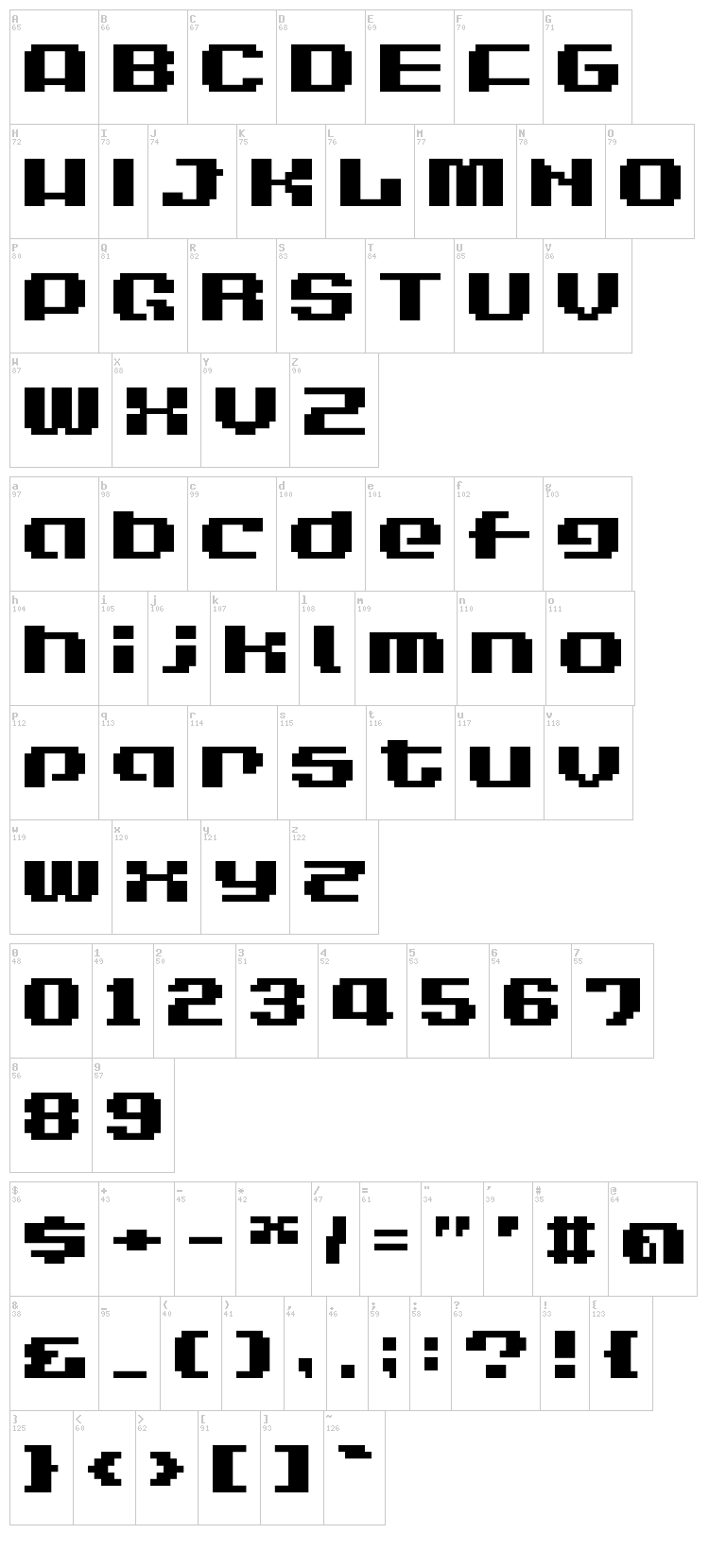
Game Over Pixel Font
Game over by pedro m.
Game over pixel font. Note of the author. It will give a blockish feeling. Thanks to mariano diez for designing and sharing this cool game over font. Download donate to author.
Game over is a free retro pixel font. In techno lcd 856494 downloads 275 yesterday free for personal use. Hope you like im sure if you like pacman you like it first seen on dafont. Game over font pixel typeface.